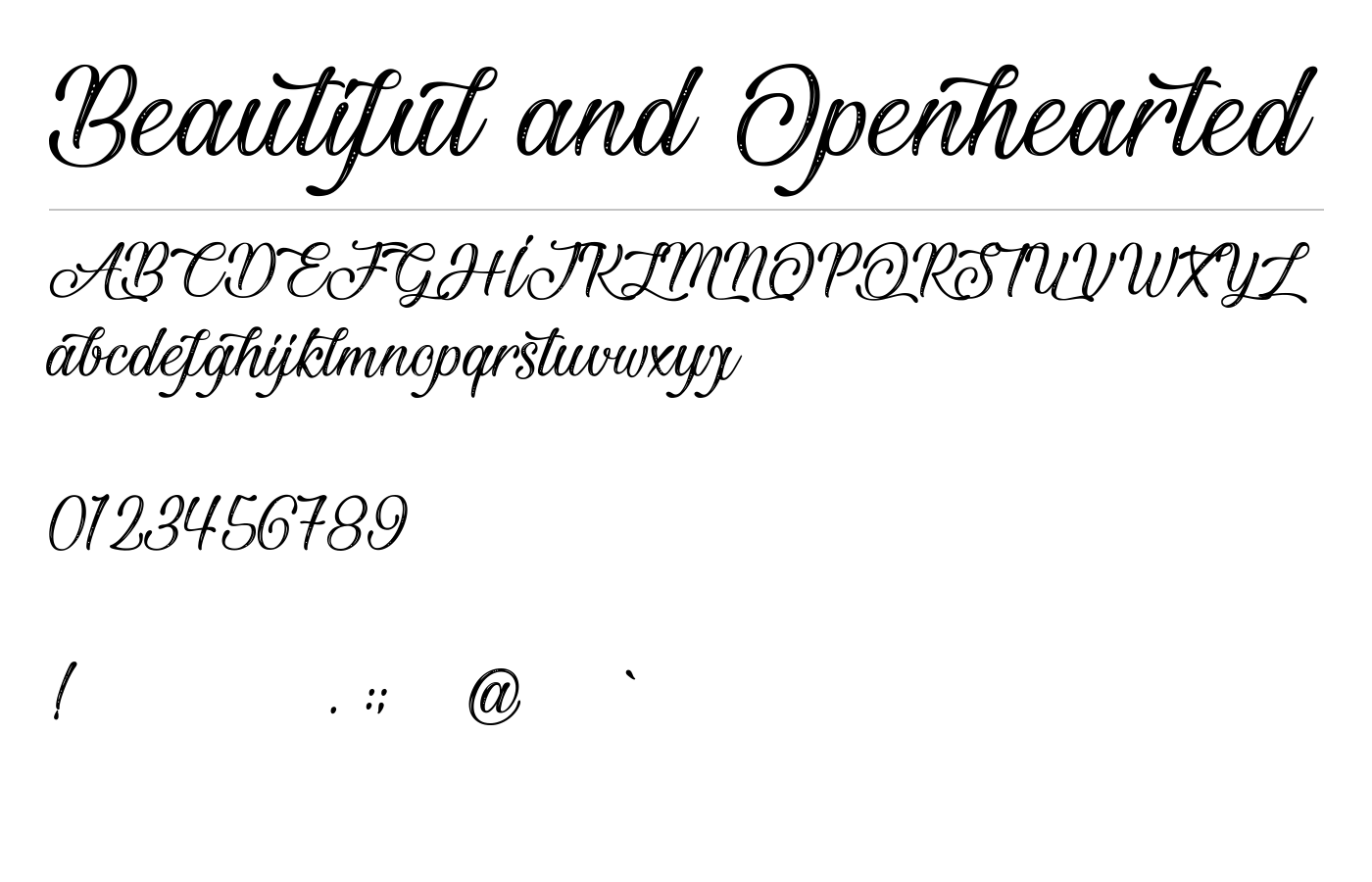
Beautiful and Openhearted is a graceful script font characterized by flowing, elegant strokes that convey warmth and sophistication. With its slender, slightly condensed letterforms and delicate curves, it evokes a sense of charm and personal touch, making it perfect for invitations, branding, and decorative use where a refined and heartfelt style is desired. This font shines in creative projects that seek to communicate elegance and openness with a modern calligraphic flair.
Beautiful and Openhearted Font
About Beautiful and Openhearted Font